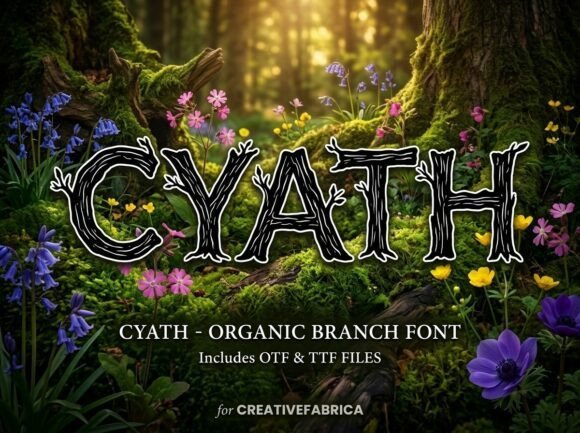
Rooted in Nature, Born for Creativity
Have you ever been lost in the woods, surrounded by the sounds of chirping birds and rustling leaves? It’s a moment that sparks something deep within us, a connection to the natural world that inspires our imagination. For designers, that moment can be a catalyst for creativity, and that’s exactly what the Cyath Font aims to capture.
As an organic display font, Cyath combines the beauty of nature with the needs of modern branding. Its unique, hand-drawn letterforms feature rhythmic textures and branching elements that evoke the magic of the forest. Whether you’re designing for an eco-friendly brand or a fantasy adventure game, Cyath is the perfect choice to bring your vision to life.
Cyath Font Key Features
- Font Family: Cyath Font is a unique, hand-drawn typeface designed to evoke a sense of elegance and sophistication.
- Character Set: Includes a wide range of characters, including uppercase and lowercase letters, numerals, punctuation marks, and symbols.
- Unique Characteristics: Features distinctive, flowing lines and organic shapes, making it perfect for creating eye-catching headlines and titles.
Cyath Font Review
Overall, I think Cyath Font has some nice features that make it worth considering for certain projects, but it’s not a perfect font. Here are my honest thoughts:
- Unique aesthetic: Cyath Font has a distinct, quirky feel that can be really appealing in the right context.
- High-resolution glyphs: The font looks sharp and clear at a variety of sizes and resolutions.
- Good for creative projects: If you’re working on a project that needs a bit of whimsy or personality, Cyath Font might be a great choice.
- Not suitable for body text: While Cyath Font is great for headlines or creative projects, it’s not the best choice for large blocks of body text.
- Limited language support: Cyath Font may not have the same level of language support as more comprehensive fonts.
- Can be overwhelming: The font’s unique aesthetic can be overwhelming if not used thoughtfully.
Overall, I think Cyath Font is a solid choice for projects where you need a bit of personality and flair. Just be sure to use it thoughtfully and consider its limitations.
Tips for Getting the Most Out of Cyath Font
Use Cyath Font for headings and titles to add a touch of elegance and sophistication to your designs.
Experiment with different font sizes and styles to create visual interest and hierarchy in your content.
Pair Cyath Font with other elegant fonts to create a unique and stylish typography combination.
Cyath Font is perfect for:
Alternatives to Cyath Font
Montserrat is a sans-serif font that is highly legible and versatile. It is suitable for use in a wide range of applications, from digital products to print materials. Montserrat is a more geometric font compared to Cyath Font, which has a more organic feel. It is also more commonly used in modern designs, making it a great alternative for designers who want a clean and contemporary look.
Lato is a modern sans-serif font that is highly legible and easy to read. It is a great alternative to Cyath Font for designers who want a font that is both clean and elegant. Lato has a more rounded feel compared to Cyath Font, making it suitable for use in applications where a softer look is desired. It is also highly customizable, making it a great choice for designers who want to create a unique look.
Open Sans is a highly legible sans-serif font that is suitable for use in a wide range of applications. It is a great alternative to Cyath Font for designers who want a font that is both clean and easy to read. Open Sans has a more neutral feel compared to Cyath Font, making it suitable for use in applications where a neutral look is desired. It is also highly customizable, making it a great choice for designers who want to create a unique look.